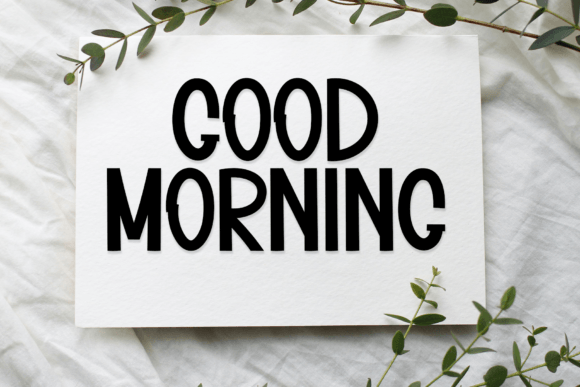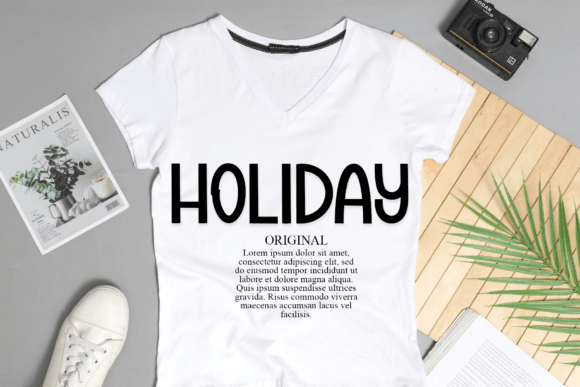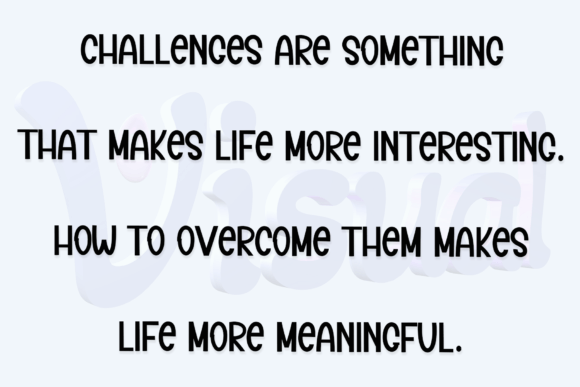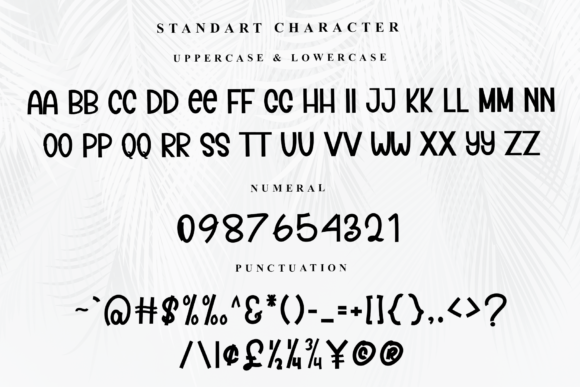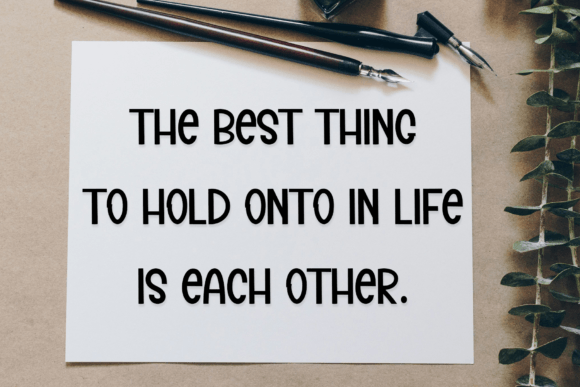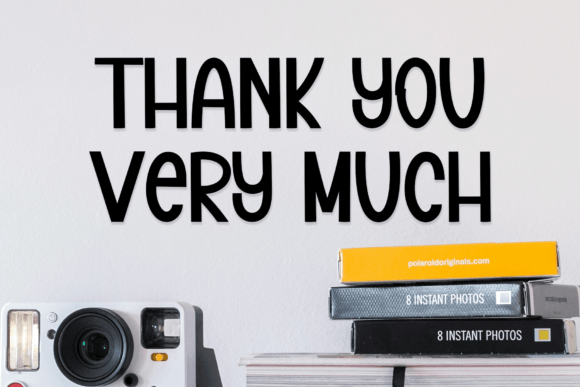
Discover the Charm of Everyday Font: A Handwritten Delight
In the world of typography, few fonts manage to capture the essence of warmth and personality as effortlessly as Everyday Font. This charming handwritten font is a game-changer for designers and crafters looking to add a touch of whimsy to their projects. With its playful yet legible style, Everyday Font is perfect for a wide range of applications, from greeting cards and invitations to branding and more.
The Beauty of Handwritten Authenticity
Everyday Font stands out from the crowd with its natural strokes and irregularities, which give it a distinctly handmade feel. This font’s unique character is reminiscent of handwritten letters and notes, evoking a sense of nostalgia and personal connection. The irregularities in the font’s design create a sense of movement and fluidity, making it feel more dynamic and engaging.
Playful yet Legible
One of the key benefits of Everyday Font is its perfect balance of playfulness and legibility. The font’s playful style makes it ideal for creative projects, such as greeting cards, invitations, and social media graphics. At the same time, its legibility ensures that the text remains clear and easy to read, even at smaller sizes. This makes Everyday Font an excellent choice for designers who want to add some personality to their work without sacrificing clarity.
Everyday Font’s versatility is one of its greatest strengths. This font can be used for a wide range of projects, including:
- Greeting cards: Add a personal touch to your greeting cards with Everyday Font’s charming handwritten style.
- Invitations: Make your invitations stand out with this font’s playful and elegant design.
- Branding: Use Everyday Font to create a unique and memorable brand identity that reflects your personality and style.
- Social media graphics: Add some personality to your social media graphics with Everyday Font’s playful and engaging style.
Why Designers and Crafters Love Everyday Font
Designers and crafters alike love Everyday Font for its unique character and versatility. Here are just a few reasons why:
- Unique character: Everyday Font’s handmade feel and natural strokes give it a distinctive character that sets it apart from other fonts.
- Easy to use: This font is easy to read and works well in a variety of contexts, making it a great choice for designers and crafters of all skill levels.
- Versatile: Everyday Font can be used for a wide range of projects, from greeting cards to branding and more.
Tips for Using Everyday Font
To get the most out of Everyday Font, here are a few tips to keep in mind:
- Use it sparingly: Everyday Font’s playful style works best when used sparingly. Try using it for headings or titles, and pairing it with a simpler font for body text.
- Experiment with colors: Everyday Font looks great in a variety of colors, from bright and bold to soft and pastel. Experiment with different colors to find the perfect look for your project.
- Pair it with other fonts: Everyday Font pairs well with a variety of other fonts, from simple sans-serifs to elegant scripts. Try pairing it with other fonts to create a unique and interesting look.
Everyday Font is a charming handwritten font that adds a touch of whimsy to any project. With its playful yet legible style, natural strokes, and irregularities, this font captures the essence of handmade authenticity. Whether you’re a designer or crafter, Everyday Font is a great choice for a wide range of projects, from greeting cards and invitations to branding and more. So why not give it a try and see the difference it can make in your work?